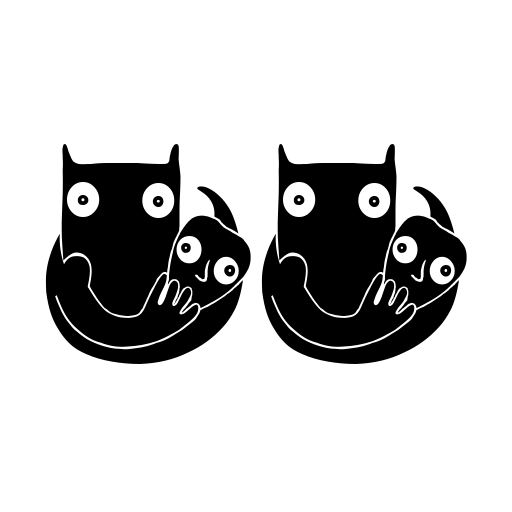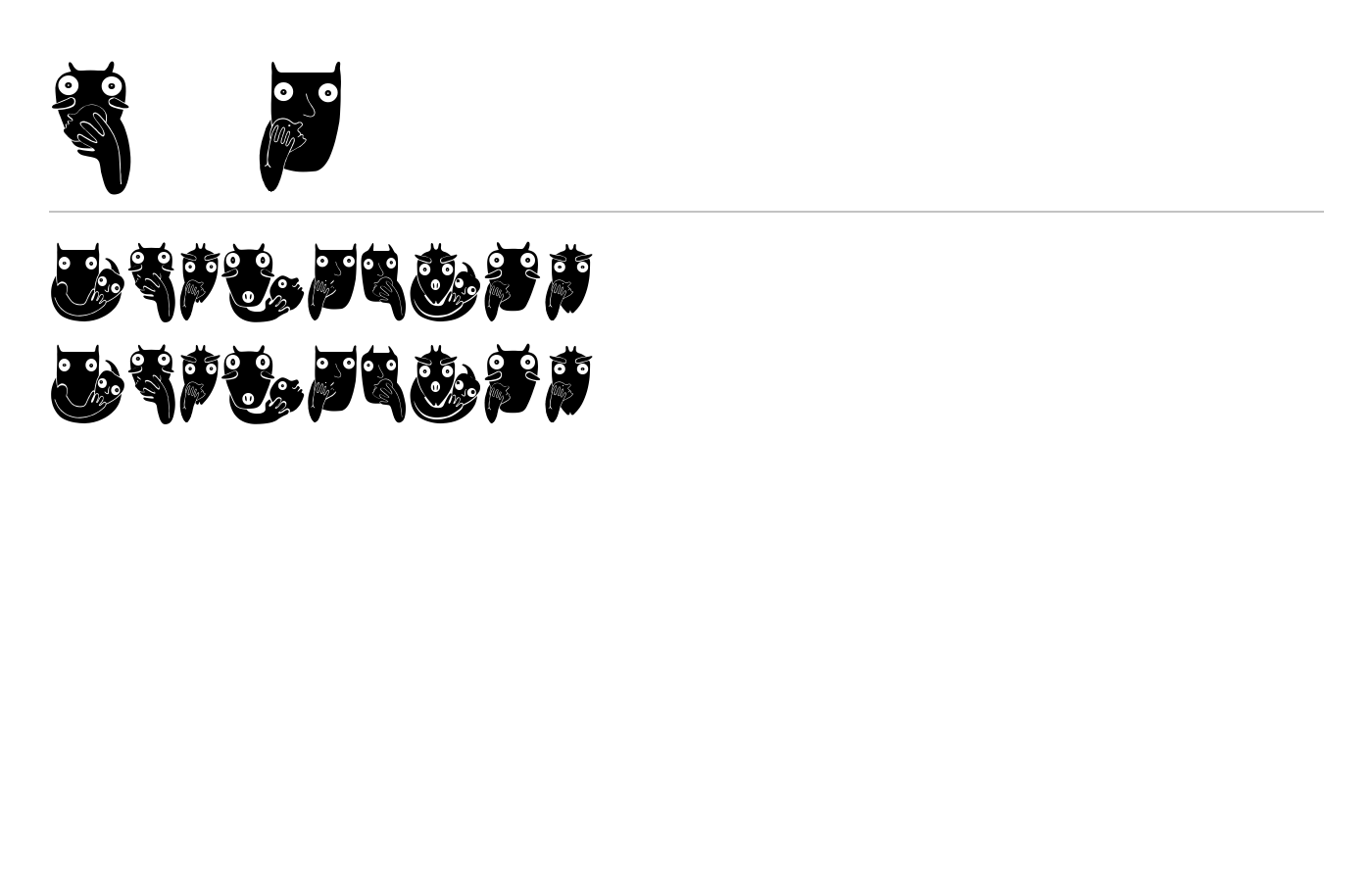
Bonvenon is a highly unique and playful decorative font featuring whimsical cat-like characters with expressive eyes and hands. It stands out with its bold, solid black shapes and imaginative design, making it ideal for creative and fun branding, children’s media, or quirky logos where a strong personality and distinctive appearance are key. This font works best for headlines and display purposes rather than body text, due to its specialized glyph style and artistic expression.
Bonvenon Font
About Bonvenon Font
| Font family | Bonvenon Font |